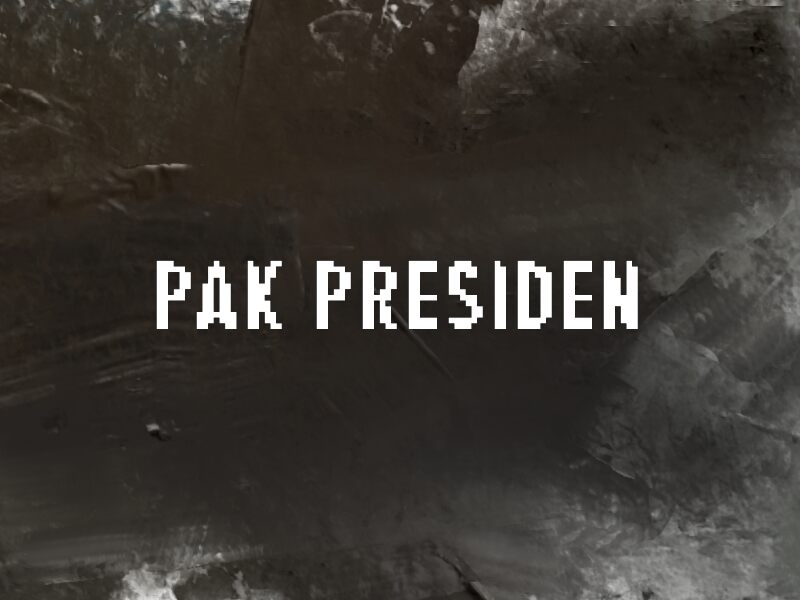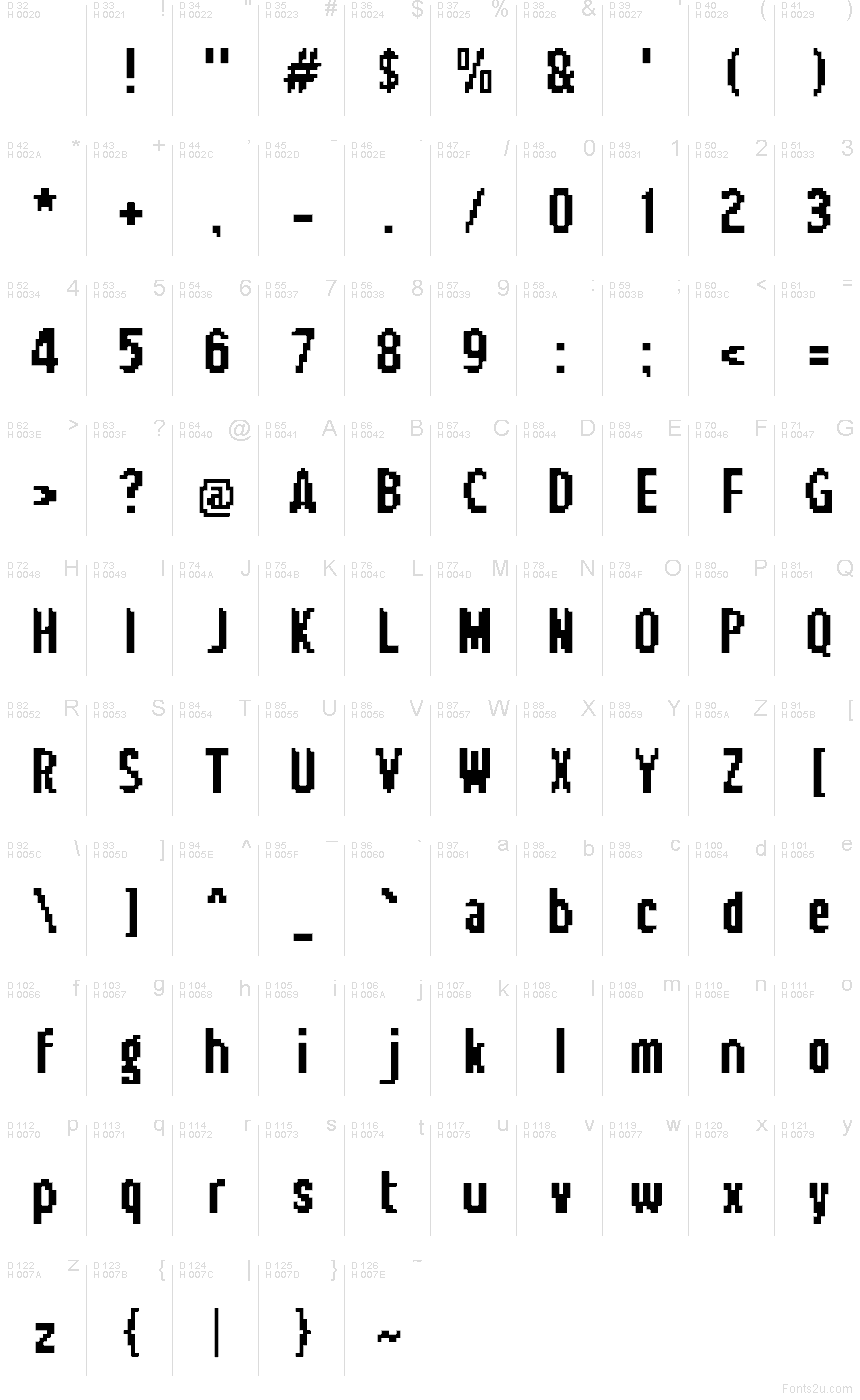
Pak Presiden font by wepfont.com is a free pixelated bitmap typeface that captures the charm of early computer screens and 8‑bit game titles. Tall, narrow letters march along a tight grid, with blocky diagonals and stepped curves that feel crisp and intentionally low-res. It has a straight-to-the-point, slightly technical voice that still feels playful and handmade, like text on an old console or cartridge label.
Using Pak Presiden, your titles snap into focus on retro game UIs, pixel-art posters, stream overlays, chiptune album covers, indie zines, and coding-themed merch. This free font works best at larger sizes where each square pixel can really show, and it pairs smoothly with a clean sans-serif for body text to keep layouts readable while the headlines stay deliciously crunchy and nostalgic.
Pak Presiden